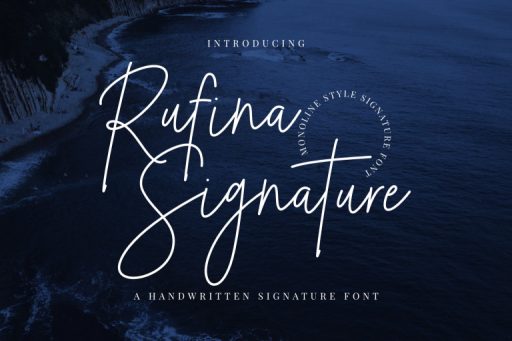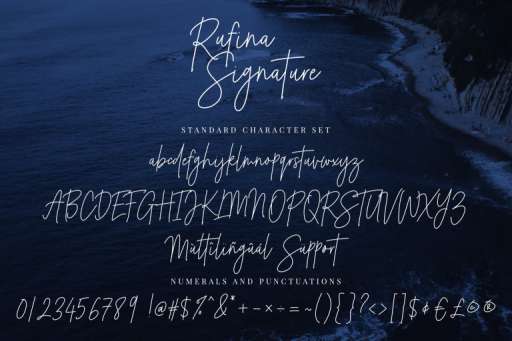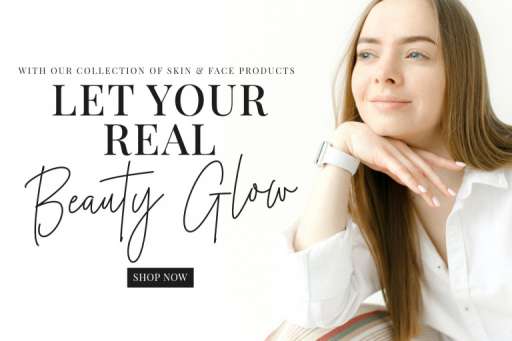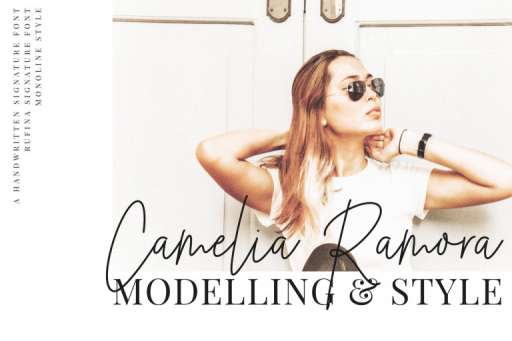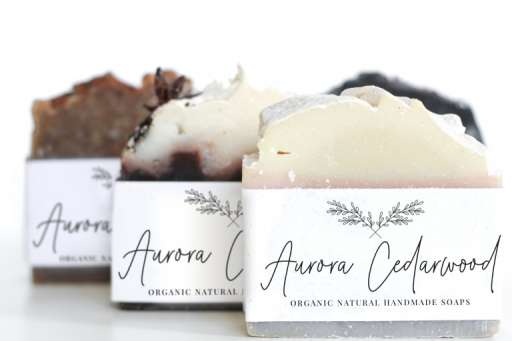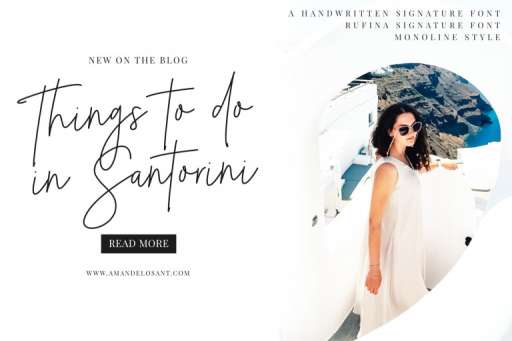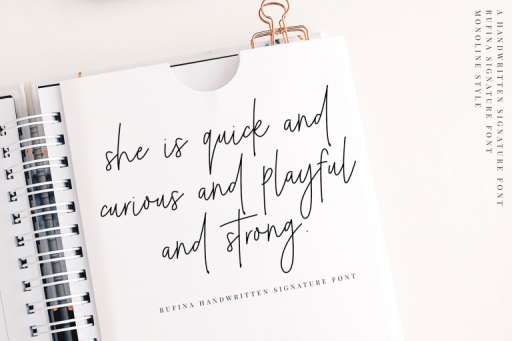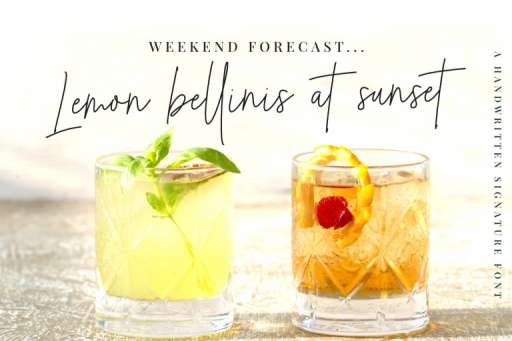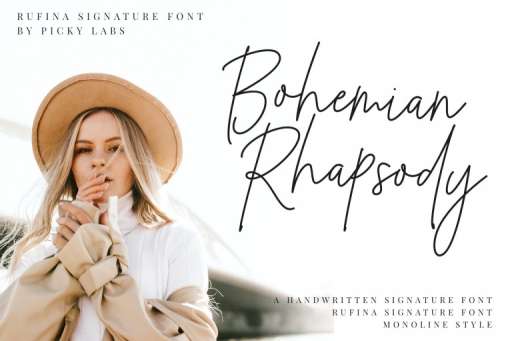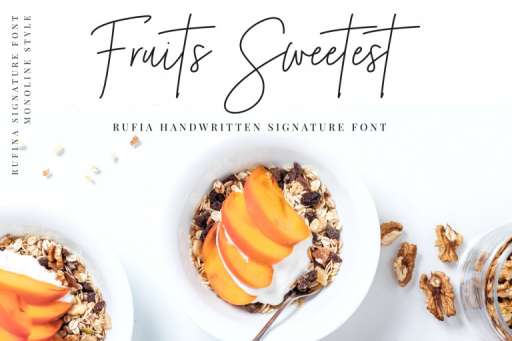
Rufina Signature Font Business Purpose
Rufina Signature Font
Rufina – Signature Business Font
Rufina Signature font is a sophisticated style font and legible at the same time with monoline stylish that you can use to perfect your design. This Font can be used for branding, logos, social media posts, advertisements, blogging, and many other design projects.
Rufina Signature Font
Rufina Signature font is a sophisticated style font and legible at the same time with monoline stylish that you can use to perfect your design. This Font can be used for branding, logos, social media posts, advertisements, blogging, and many other design projects.